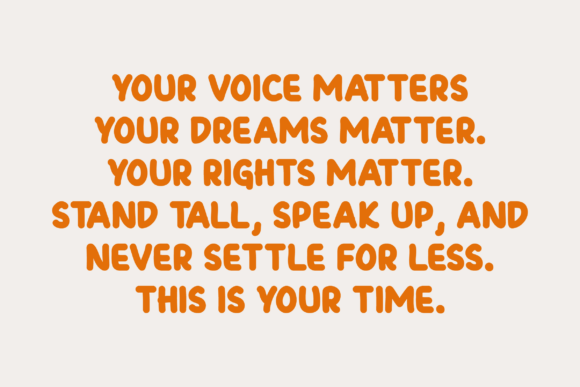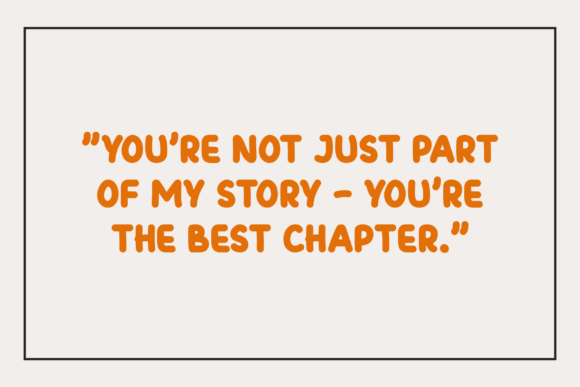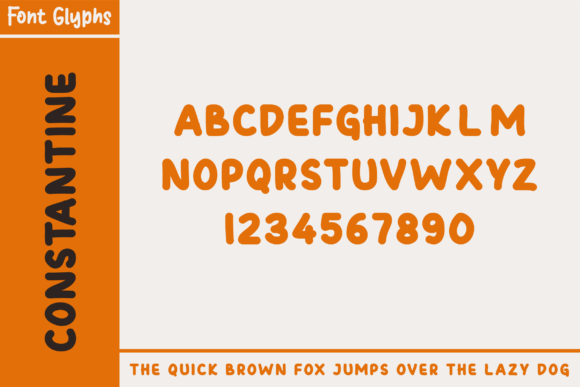
Make an Impact with Constantine: A Handwritten Font that Combines Strength and Charm
In the world of typography, a font can make or break a design. It can elevate a brand’s identity, convey its message, and leave a lasting impression on its audience. If you’re a designer or crafter looking for a font that can help you achieve a professional yet approachable aesthetic, look no further than Constantine. This handwritten font combines a strong, bold presence with a charming, personal touch, making it ideal for a wide range of design applications.
The Unique Style of Constantine
Constantine is a truly unique font that stands out from the crowd. Its handwritten style gives it a personal and authentic feel, while its bold presence ensures that it commands attention. The font’s characters are carefully crafted to convey a sense of warmth and approachability, making it perfect for designs that require a human touch. Whether you’re working on a branding project, packaging design, social media graphics, or print materials, Constantine is sure to make an impact.
Ideal for Branding and Packaging
When it comes to branding and packaging, a font can play a crucial role in communicating a brand’s values and personality. Constantine is an excellent choice for brands that want to convey a sense of warmth, approachability, and authenticity. Its unique style adds a touch of personality to any design, helping brands to stand out in a crowded market. Whether you’re designing a logo, label, or packaging material, Constantine is sure to help you create a lasting impression.
Perfect for Social Media and Print
In today’s digital age, social media and print materials are essential components of any design strategy. Constantine is perfectly suited for social media graphics, including Facebook posts, Instagram stories, and Twitter headers. Its bold presence and charming style ensure that your message gets noticed, while its legibility makes it easy to read on a variety of devices. For print materials, such as brochures, flyers, and business cards, Constantine adds a touch of personality and warmth, helping you to connect with your audience.
Key Features of Constantine
- Handwritten style: Constantine’s handwritten style gives it a personal and authentic feel, making it perfect for designs that require a human touch.
- Bold presence: The font’s bold presence ensures that it commands attention, making it ideal for headlines, titles, and emphasis text.
- Warm and approachable: Constantine’s characters are carefully crafted to convey a sense of warmth and approachability, making it perfect for designs that require a friendly tone.
- Legible: The font is highly legible, making it easy to read on a variety of devices and in different sizes.
- Versatile: Constantine is suitable for a wide range of design applications, including branding, packaging, social media, and print.
Tips for Using Constantine
To get the most out of Constantine, here are a few tips to keep in mind:
- Use it as a headline font: Constantine’s bold presence makes it perfect for headlines and titles.
- Pair it with a sans-serif font: Pairing Constantine with a sans-serif font can create a nice contrast and add visual interest to your design.
- Experiment with colors: Constantine looks great in a variety of colors, so don’t be afraid to experiment and find the perfect hue for your design.
- Use it consistently: To create a cohesive look, use Constantine consistently throughout your design.
| Author | Goliatte Studio |
In conclusion, Constantine is a unique and versatile font that can help you achieve a professional yet approachable aesthetic. Its handwritten style, bold presence, and warm and approachable characters make it perfect for a wide range of design applications. Whether you’re a designer or crafter, Constantine is sure to make an impact and help you connect with your audience. So why not give it a try and see the difference it can make in your designs?